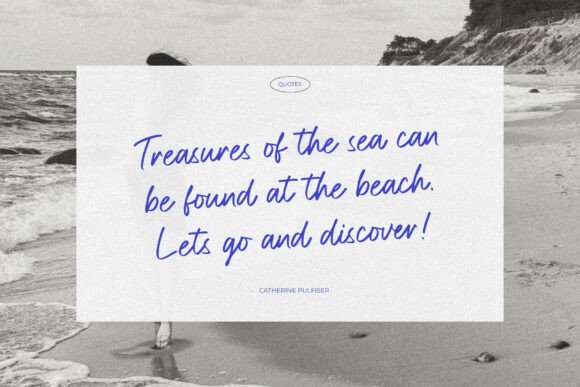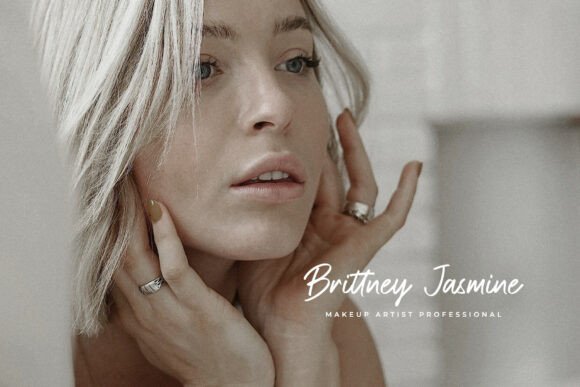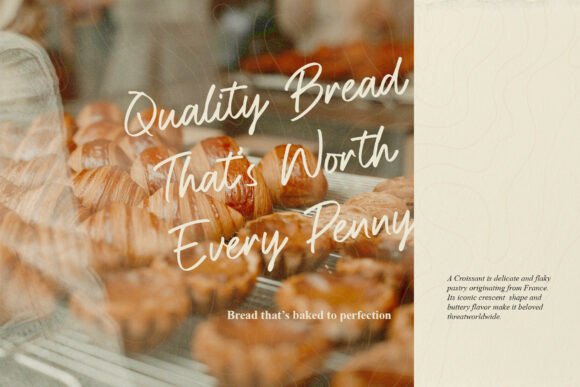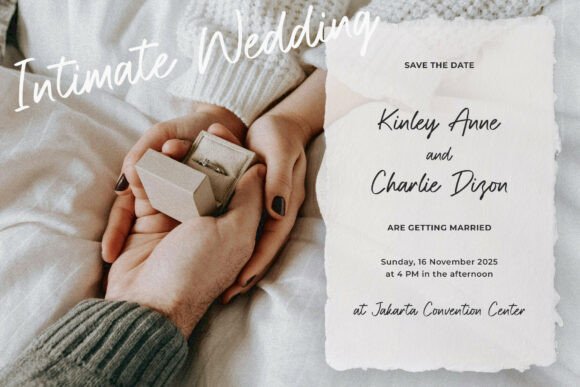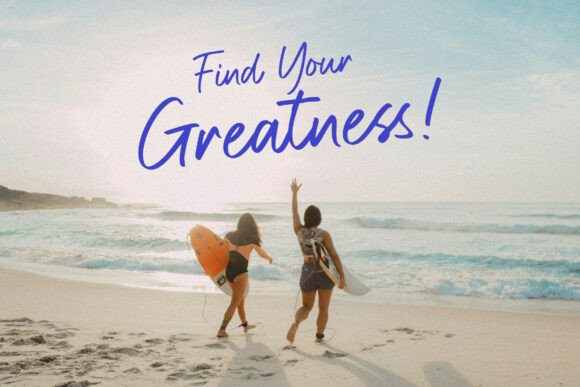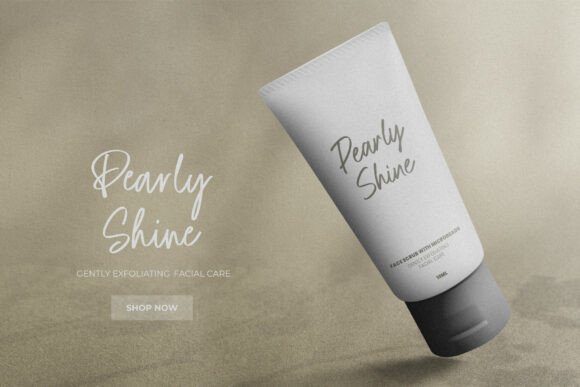
Introduction to Royal Wisdom Font
Have you ever found yourself staring at a blank canvas, eager to bring your creative vision to life, only to be halted by the perfect font? That’s a feeling many designers can relate to. The right font can make all the difference in elevating your work from ordinary to extraordinary. For those seeking a high-quality design resource that exudes sophistication and elegance, look no further than the Royal Wisdom Font.
This exquisite script typeface is designed to flow with the same class and poise as a royal signature, making it perfect for branding, wedding invitations, logos, and social media. With over 300 glyphs and multilingual support, the Royal Wisdom Font is an invaluable resource for designers looking to add a touch of exclusivity to their work. Plus, with its transparent background and PUA-encoded features, you’ll have effortless access to customize your creations with ease.
Whether you’re working on a free download or a paid project, the Royal Wisdom Font is sure to be a valuable addition to your design toolkit. So why settle for ordinary when you can create something truly extraordinary with this stunning font?
Key Features of Royal Wisdom Font
- High-resolution design resource with a transparent background, ideal for creative projects requiring a touch of elegance.
- Comes in a single font size, making it easy to use in various design contexts, from small text to large headings.
- Resolution: 300 DPI, ensuring crisp and clear text display on high-resolution screens and printed materials.
- Unique characteristics include intricate details and ornate flourishes, adding a touch of sophistication to any design project.
- Perfect for use in a variety of creative projects, including invitations, posters, and branding materials, requiring a high-quality design resource.
Honest Review: Royal Wisdom Font
As a designer, I’m always on the lookout for high-quality design resources that can elevate my creative projects. Recently, I stumbled upon the Royal Wisdom Font, and I’m excited to share my honest review with you.
What works well: ✨ The Royal Wisdom Font is a stunning addition to any design project. Its elegant and sophisticated design makes it perfect for luxury brands, fine art, and high-end creative projects. The font also comes with a transparent background, which allows for seamless integration with other design elements.
Here are some key features of the Royal Wisdom Font:
- High-quality design with intricate details
- Perfect for luxury brands, fine art, and high-end creative projects
- Includes a transparent background for seamless integration
What doesn’t work well: ⚠️ While the Royal Wisdom Font is an excellent addition to any design project, it may not be suitable for casual or everyday use. The font’s intricate details and high-end design may be overwhelming for simple projects.
Overall impression: I’m thoroughly impressed with the Royal Wisdom Font. Its high-quality design and transparent background make it an excellent resource for designers working on creative projects. If you’re looking for a font that exudes luxury and sophistication, look no further than the Royal Wisdom Font.
Tips for Getting the Most Out of Royal Wisdom Font
Experiment with different font sizes, colors, and combinations to create unique and eye-catching designs. Use the font in combination with other design elements, such as graphics and images, to add depth and interest to your designs. Take advantage of the font’s transparent background to create seamless and professional-looking designs.
Does the Royal Wisdom Font have a transparent background?
Yes, the Royal Wisdom Font comes with a transparent background, making it easy to use with any background image or color. This feature allows for a seamless integration with your design project.